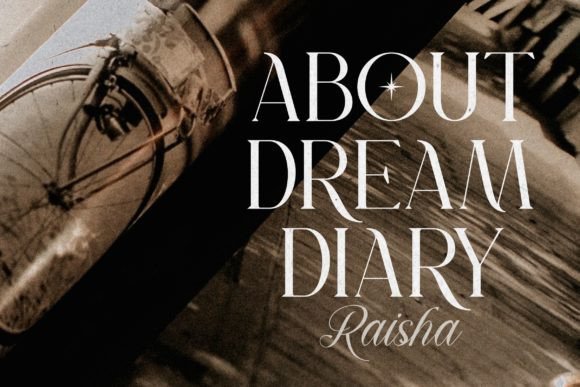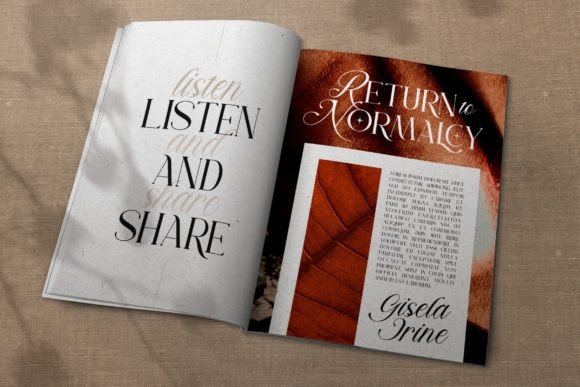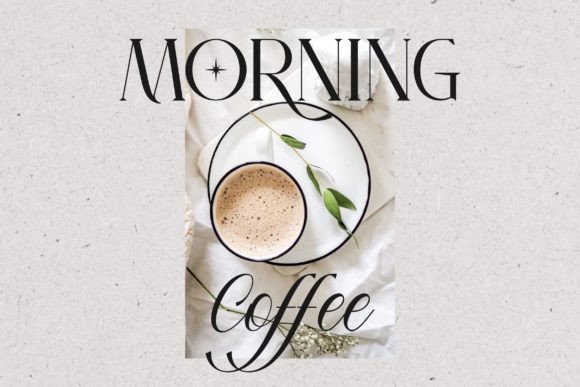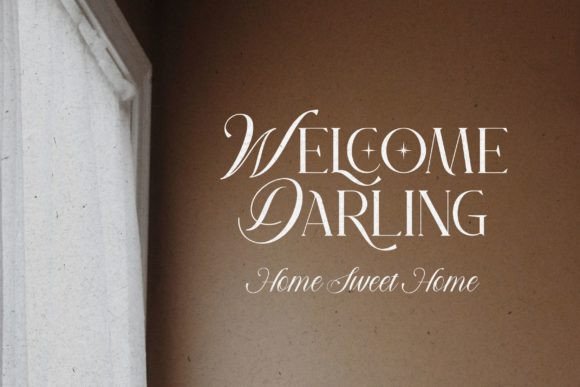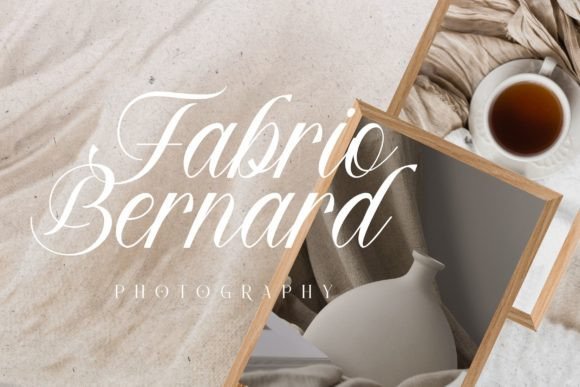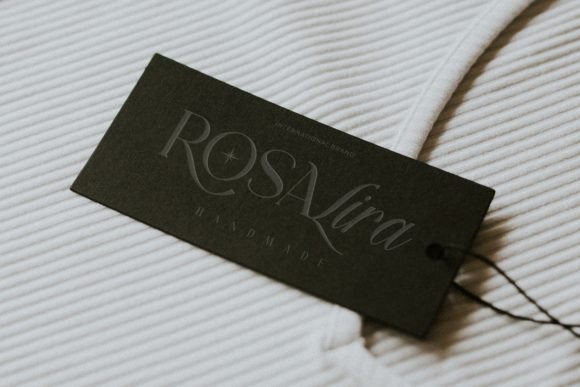
Brown Marlyn Duo Font: Elevate Your Designs with Elegance and Sophistication
Are you on the hunt for a font duo that exudes style, elegance, and timelessness? Look no further than the Brown Marlyn Duo Font! This stunning serif and script font combination is sure to capture your heart with its distinct and classic appeal. In this article, we’ll dive into the world of Brown Marlyn, exploring its features, benefits, and uses, and discover why it’s a must-have for designers and crafters alike.
What is Brown Marlyn Duo Font?
Brown Marlyn is a thoughtfully crafted font duo that consists of a serif and a script font, perfectly paired to create a harmonious and visually appealing combination. The serif font boasts a classic and sophisticated look, while the script font adds a touch of elegance and whimsy. Together, they form a versatile and dynamic duo that can be used for a wide range of design projects.
Key Features of Brown Marlyn Duo Font
- Incredibly Distinct and Timeless Style: Brown Marlyn’s unique design ensures that your designs stand out from the crowd and remain relevant for years to come.
- PUA Encoded: This font duo is PUA (Private Use Area) encoded, which means you can easily access all the glyphs and ligatures, making it simple to create stunning designs.
- Serif and Script Font Combination: The pairing of a classic serif font with a beautiful script font offers endless possibilities for creative expression.
- Elegant and Sophisticated: Brown Marlyn’s refined design makes it perfect for projects that require a touch of luxury and sophistication.
Benefits of Using Brown Marlyn Duo Font
So, why should you choose Brown Marlyn for your design projects? Here are just a few benefits of using this exceptional font duo:
- Enhance Your Brand’s Visual Identity: With Brown Marlyn, you can create a consistent and professional visual brand that sets you apart from the competition.
- Elevate Your Designs: This font duo is designed to add a touch of elegance and sophistication to any design project, making it perfect for branding, packaging, and marketing materials.
- Streamline Your Design Process: With PUA encoding, you can easily access all the glyphs and ligatures, saving you time and effort in the design process.
- Versatility: Brown Marlyn can be used for a wide range of design projects, from logos and branding to invitations, packaging, and more.
Who Can Benefit from Brown Marlyn Duo Font?
Brown Marlyn is an excellent choice for:
- Graphic Designers: Elevate your designs with a stylish and elegant font duo that’s perfect for branding, packaging, and marketing materials.
- Crafters: Add a touch of sophistication to your handmade projects, such as invitations, cards, and DIY crafts.
- Marketers: Create stunning visual content that captures your audience’s attention and sets your brand apart.
- Small Business Owners: Establish a professional visual identity with Brown Marlyn’s classic and elegant design.
Tips and Tricks for Using Brown Marlyn Duo Font
Here are some tips to help you get the most out of Brown Marlyn:
- Experiment with Font Pairings: Try pairing Brown Marlyn with other fonts to create unique and interesting combinations.
- Play with Ligatures: Take advantage of Brown Marlyn’s PUA encoding to access ligatures and create beautiful, flowing text.
- Use it for Headings and Body Text: Brown Marlyn’s versatility makes it perfect for both headings and body text, allowing you to create a cohesive and professional look.
| Author | ergibi studio |
In conclusion, Brown Marlyn Duo Font is a stylish and elegant font duo that’s sure to elevate your designs and capture your heart. With its incredibly distinct and timeless style, PUA encoding, and versatile serif and script font combination, Brown Marlyn is the perfect choice for designers, crafters, and marketers looking to add a touch of sophistication to their projects. So why wait? Fall in love with Brown Marlyn and create spectacular designs that leave a lasting impression!